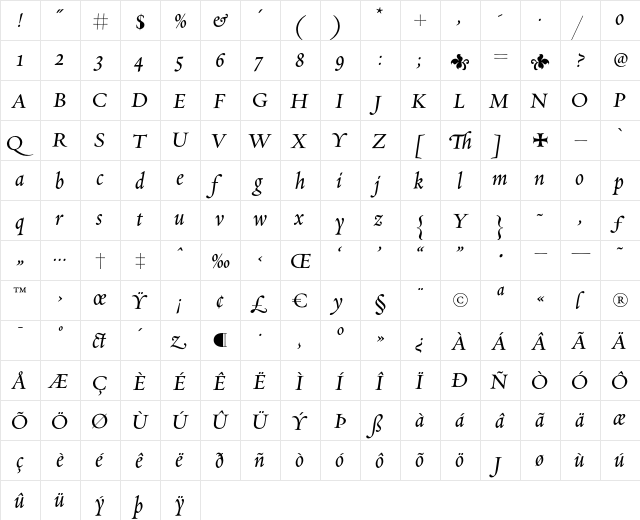
Requiem Text-HTF-Italic Font Preview
Requiem Text-HTF-Italic
Design Context for Requiem Typeface
Requiem is a composed and adaptable typeface that performs quietly and consistently across a wide range of design contexts. The slanted form adds forward momentum and visual energy.
Pro Tip: Try Requiem for annotation and caption copy alongside an upright companion — the contrast in angle creates a dynamic but ordered typographic system.